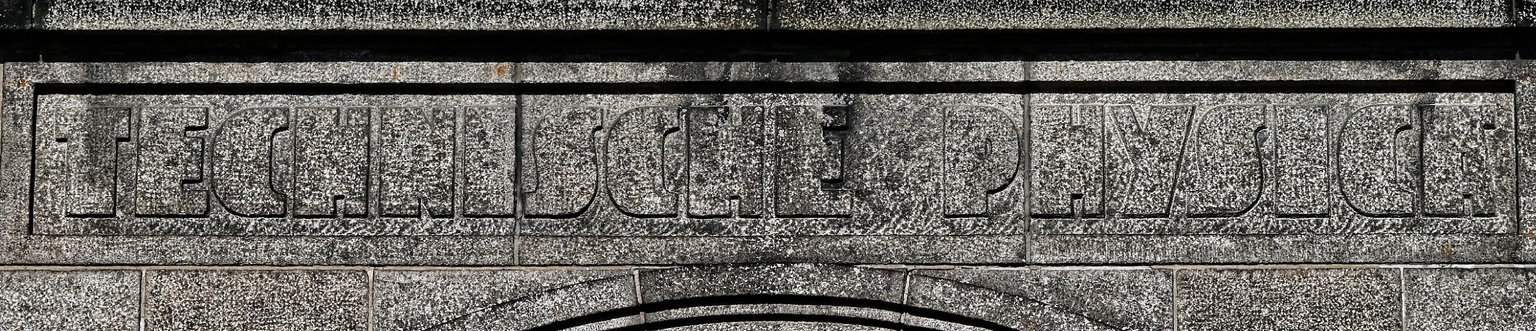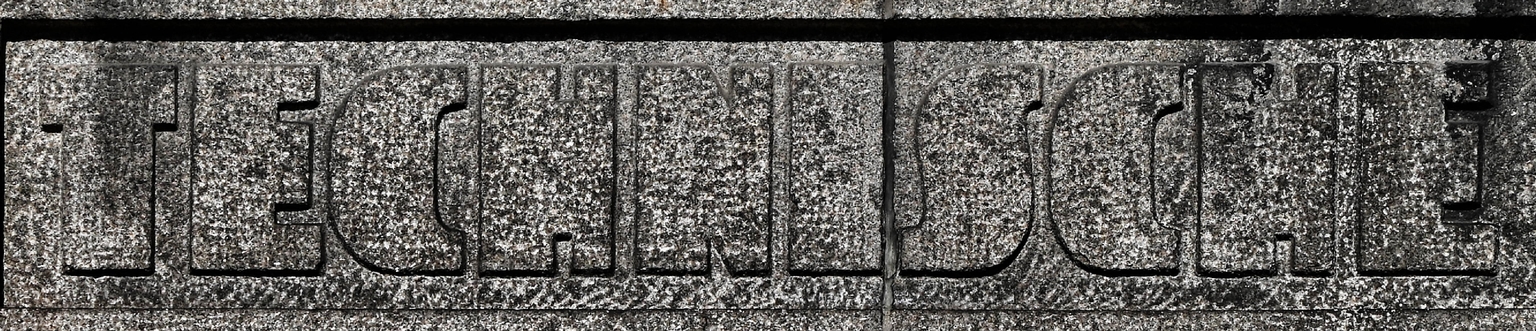
Physica
Physica is a display typeface designed by Ramiro Espinoza and inspired by the lettering on the façade of the Laboratorium voor Technische Physica der Technische Hoogeschool, located at Mijnbouwplein 11 in Delft. The building, designed by architects G. van Drecht, W.F.L. van Leeuwen, and Johan Robbers, reflects the careful balance between function and ornament typical of Dutch architecture in the early twentieth century.
The original letters have a friendly appearance, with soft details and subtle Deco traits. Espinoza translated these features into a digital typeface that preserves their approachable character while improving consistency and usability. Physica works well in packaging, posters, exhibitions, signage, branding, editorial design, websites, and computer games. It offers a clear, adaptable option for projects that seek a connection between historical Dutch lettering and contemporary typographic practice.